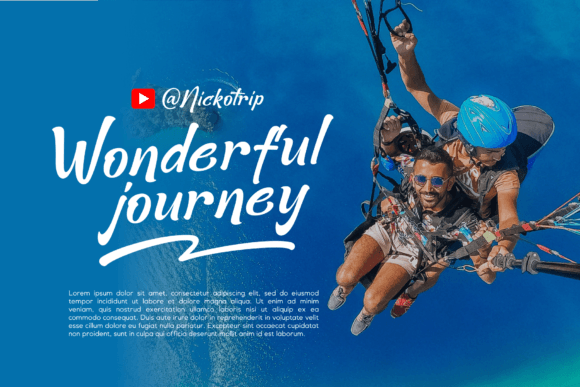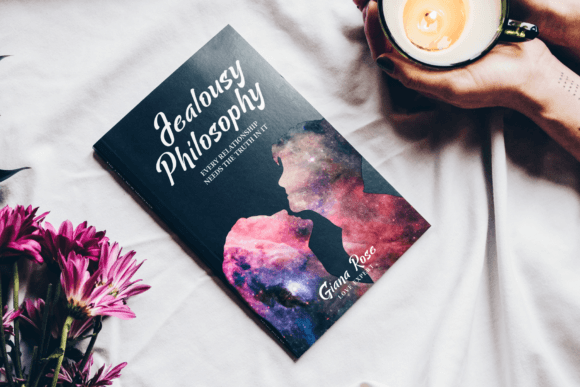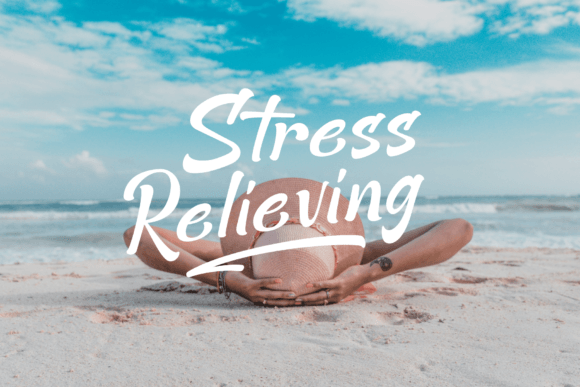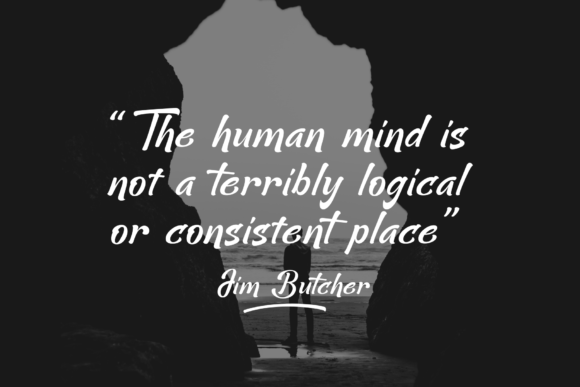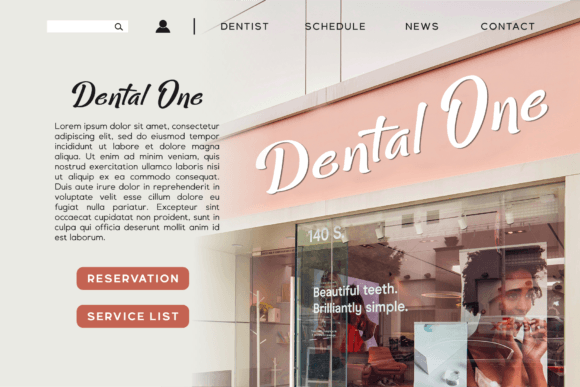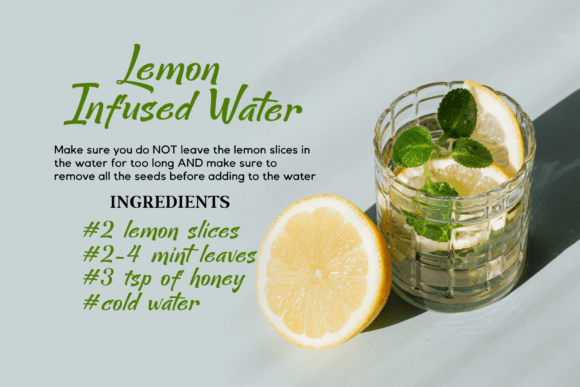
Introduction to Minimalist Stylish Font Font
Fonts play a crucial role in design, and the Minimalist Stylish Font font is a typeface that brings both character and versatility to any project. Whether you’re working on a branding project, a website, or a print design, the Minimalist Stylish Font font offers a unique style that can elevate your work.
Minimalist Stylish is a stylish and exquisite typeface that embodies the essence of sophistication and refinement.
Its elegant, sweeping letters are inspired by classic calligraphy, making it perfect for high-end branding, wedding invitations, and editorial design Its graceful and polished appearance adds a touch of luxury to any design project, making it truly stand out.
Key Features of Minimalist Stylish Font Font
Why Choose Minimalist Stylish Font Font?
The Minimalist Stylish Font font is more than just a typeface – it’s a design tool that helps you communicate your message with style and clarity. Its unique character set and versatile design make it suitable for a wide range of applications, from elegant invitations to bold headlines.
With its carefully crafted letterforms and balanced proportions, the Minimalist Stylish Font font ensures readability and visual appeal across all mediums.
What makes Minimalist Stylish Font font special?
The Minimalist Stylish Font font stands out with its unique design, exceptional readability, and versatility across various design applications.